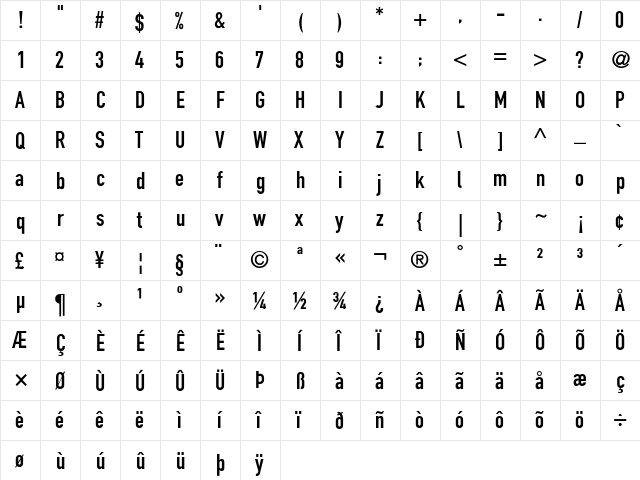
DINEngschrift-Alternate Regular Font Preview
DINEngschrift-Alternate Regular
DINEngschrift-Alternate Regular Font Details
Design Context for DINEngschrift-Alternate Typeface
DINEngschrift-Alternate offers clean, dependable letterforms without strong stylistic allegiance, making it a practical choice for designers who need flexibility.